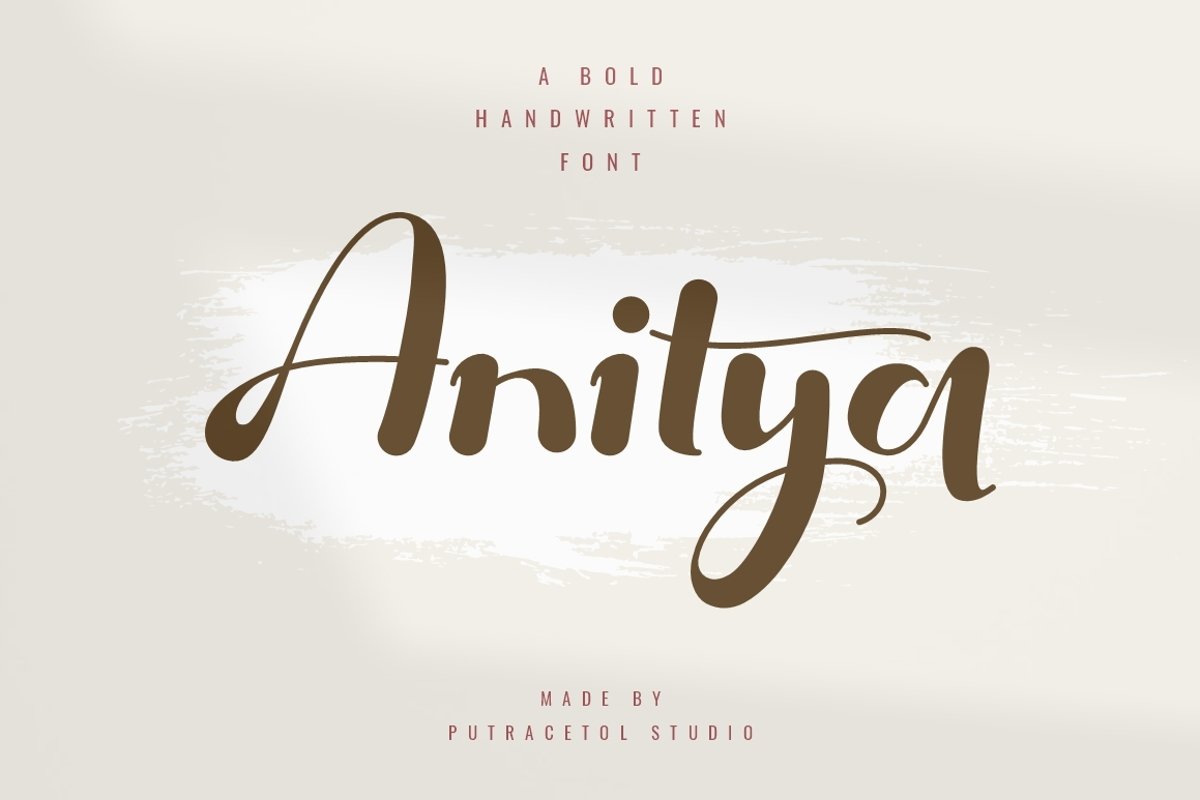
Anitya is a beautiful fancy font. This font has a modern and unique font feel, there is more feminine style too.
Anitya is perfect for logotype creation, lettering compositions, wedding invitations, fashion projects, book design cover, magazines typography, cards, packagings, posters, branding and more.
This font is also support multi language.
Comes with feature :
- Alternate
- Number, Punctuation And Symbols
- Multilanguage Support.